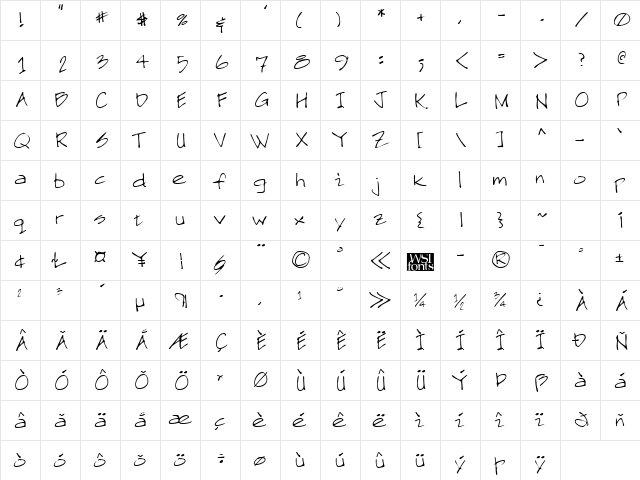
SawyersHand Regular
Design Context for SawyersHand Typeface
SawyersHand flows with the natural rhythm of handwritten lettering, making it ideal for designs that call for warmth and personal expression.
Font Pairing: Combine SawyersHand with a simple geometric sans for maximum contrast — the tension between flowing curves and clean structure is a classic typographic pairing.
Pro Tip: Pair SawyersHand with a clean sans-serif for supporting text. The contrast between fluid script and geometric structure creates an elegant typographic hierarchy.